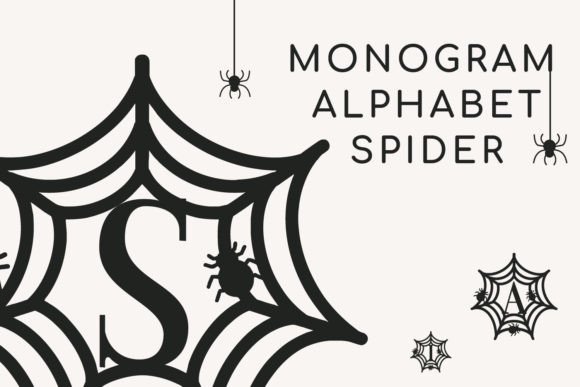
Monogram Alphabet Spider Font: A Spooky and Fun Decorative Font for Halloween
The Monogram Alphabet Spider Font is a unique and creative font that is perfect for adding a touch of spookiness and fun to any Halloween-related project or crafty idea. This decorative font is designed to resemble spider webs, making it an ideal choice for those looking to create eye-catching and festive content. In this article, we will explore the features and benefits of the Monogram Alphabet Spider Font, and provide you with inspiration and ideas on how to use it in your creative projects.
What is Monogram Alphabet Spider Font?
The Monogram Alphabet Spider Font is a digital font that features a monogram alphabet design with a spider web theme. The font is designed to be fun, spooky, and eye-catching, making it perfect for use in a variety of creative projects, such as Halloween-themed crafts, party invitations, and social media graphics. The font is available for download and can be used on a variety of devices, including computers, tablets, and smartphones.
Key Features of Monogram Alphabet Spider Font
- Unique and creative design: The Monogram Alphabet Spider Font features a unique and creative design that is sure to grab attention.
- Spooky and fun theme: The font’s spider web theme makes it perfect for Halloween-related projects and crafts.
- Monogram alphabet design: The font features a monogram alphabet design, making it easy to use and customize.
- Easily customizable: The font can be easily customized to fit your needs, including changing the color, size, and style.
Benefits of Using Monogram Alphabet Spider Font
The Monogram Alphabet Spider Font offers a range of benefits for creative professionals and hobbyists alike. Some of the benefits of using this font include:
Benefits for Creative Professionals
- Save time and effort: The Monogram Alphabet Spider Font can save you time and effort when working on Halloween-related projects, allowing you to focus on other aspects of your design.
- Increase creativity: The font’s unique and creative design can help inspire your creativity and add a new level of excitement to your work.
- Stand out from the competition: The font’s eye-catching design can help your work stand out from the competition and grab attention.
Benefits for Hobbyists
- Easy to use: The Monogram Alphabet Spider Font is easy to use, even for those with limited design experience.
- Add a personal touch: The font can add a personal touch to your Halloween-related crafts and projects, making them more special and meaningful.
- Fun and creative: The font is a fun and creative way to add some spookiness and excitement to your Halloween-related projects.
Ideas for Using Monogram Alphabet Spider Font
The Monogram Alphabet Spider Font can be used in a variety of creative projects and crafts, including:
Halloween-Themed Crafts
- Party invitations: Use the font to create spooky and fun party invitations for your Halloween party.
- Halloween decorations: Use the font to create Halloween decorations, such as signs, banners, and garlands.
- Costume designs: Use the font to create custom costume designs, such as t-shirts, hats, and bags.
Digital Projects
- Social media graphics: Use the font to create spooky and fun social media graphics, such as Facebook posts and Instagram stories.
- Blog posts: Use the font to add a touch of spookiness and excitement to your Halloween-themed blog posts.
- Email newsletters: Use the font to create spooky and fun email newsletters for your subscribers.
Tips and Tricks for Using Monogram Alphabet Spider Font
Here are some tips and tricks for using the Monogram Alphabet Spider Font:
Choosing the Right Color
When using the Monogram Alphabet Spider Font, it’s essential to choose the right color to match your project’s theme and style. Some popular color options include:
- Black and orange: A classic Halloween color combination that works well with the font’s spider web design.
- Purple and green: A fun and spooky color combination that adds a touch of excitement to your project.
- Red and black: A bold and eye-catching color combination that works well for party invitations and decorations.
Customizing the Font
The Monogram Alphabet Spider Font can be easily customized to fit your needs. Here are some tips for customizing the font:
- Change the size: Experiment with different font sizes to find the perfect size for your project.
- Change the color: Try out different color combinations to find the one that works best for your project.
- Add effects: Add effects, such as shadows or outlines, to give the font a more dramatic look.
The Monogram Alphabet Spider Font is a fun and spooky decorative font that is perfect for adding a touch of excitement to your Halloween-related projects and crafts. With its unique and creative design, this font is sure to grab attention and add a personal touch to your work. Whether you’re a creative professional or hobbyist, this font is a great addition to your design toolkit.